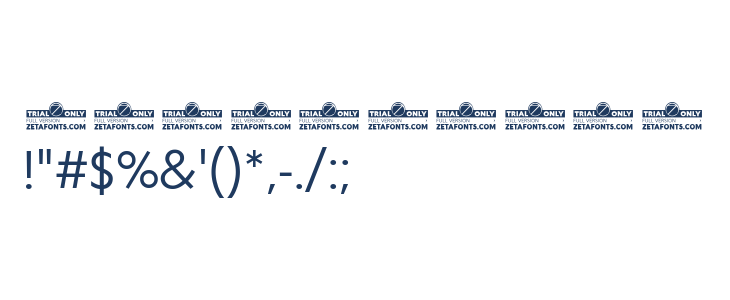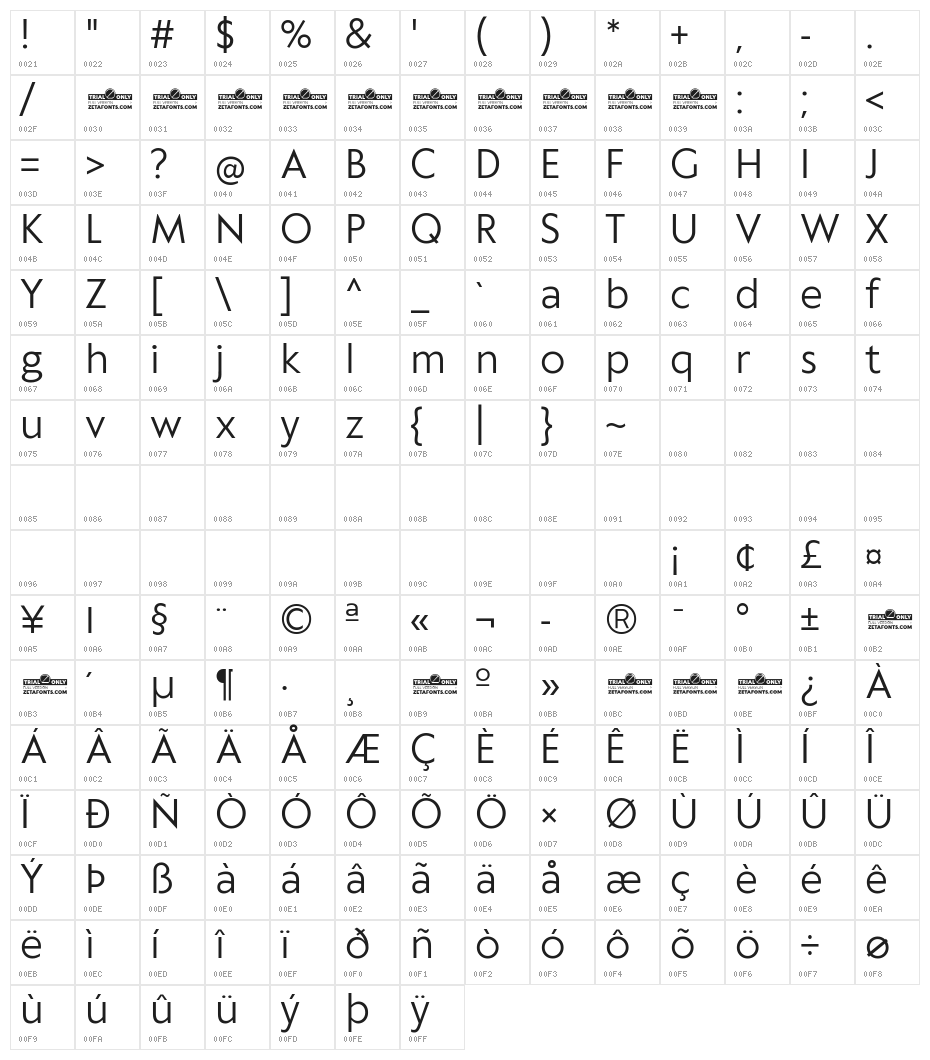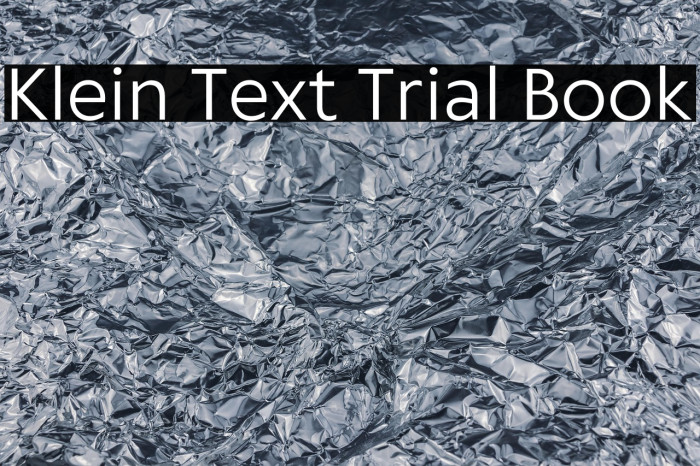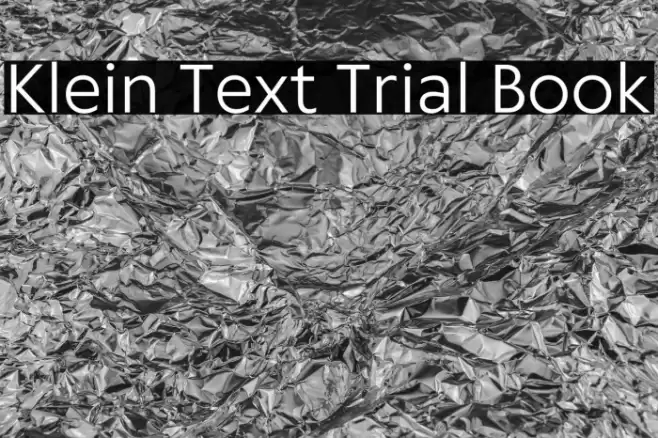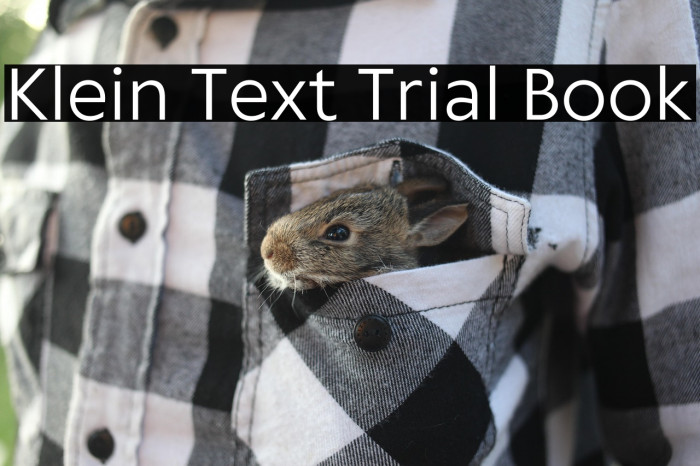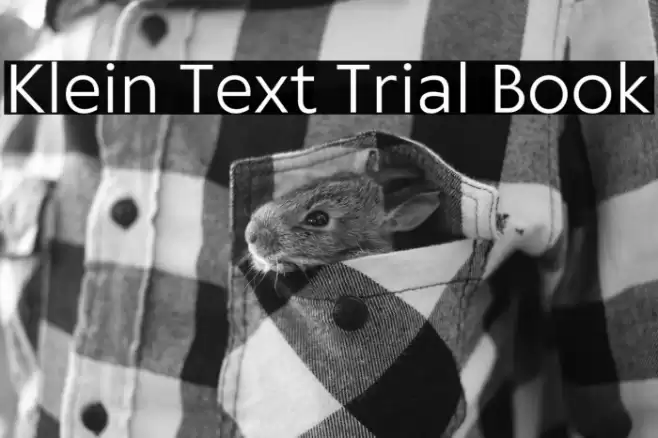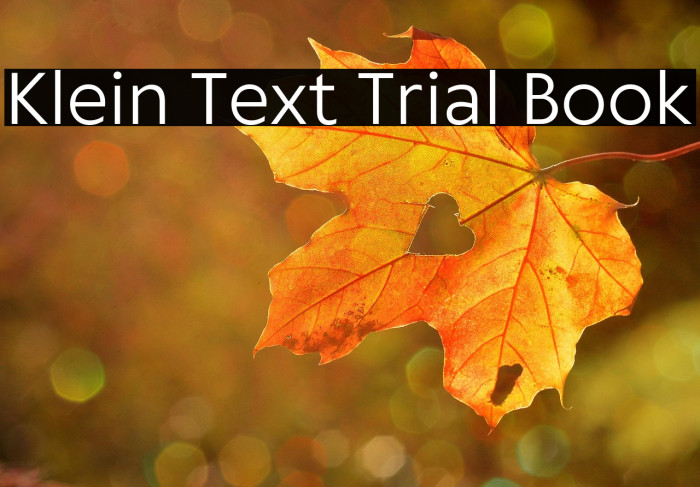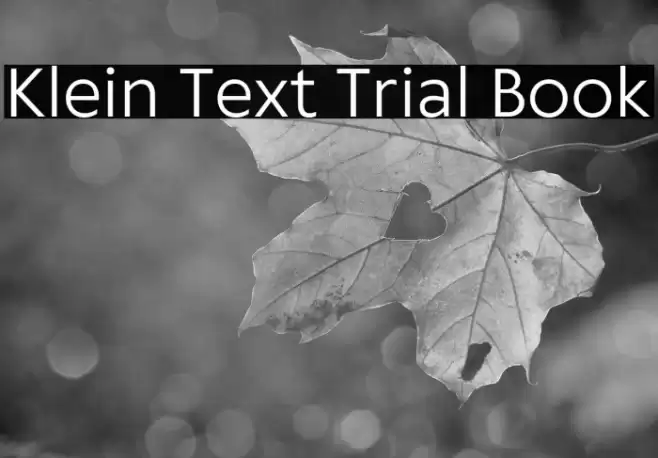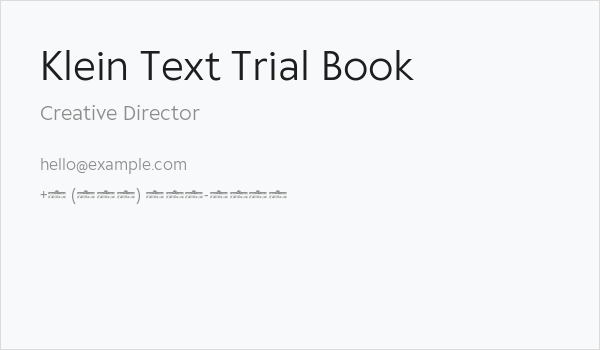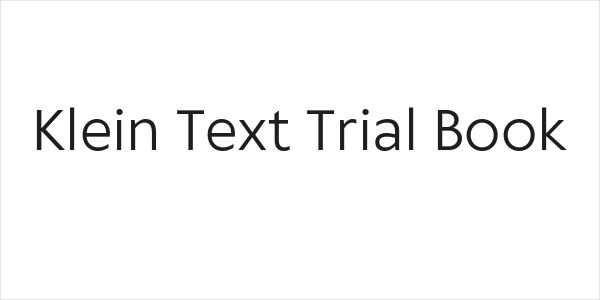
Klein Text Trial Book Font
Klein Text Trial Book Description
This font features a clean and modern sans-serif design, characterized by its simplicity and readability. The uppercase and lowercase letters are well-proportioned, with a consistent stroke width that gives it a uniform appearance. The characters are slightly rounded, adding a touch of softness to the overall look. The numerals and special characters maintain the same design principles, ensuring coherence across all glyphs. This font is versatile, suitable for both digital and print media, and can be used effectively in various design contexts.